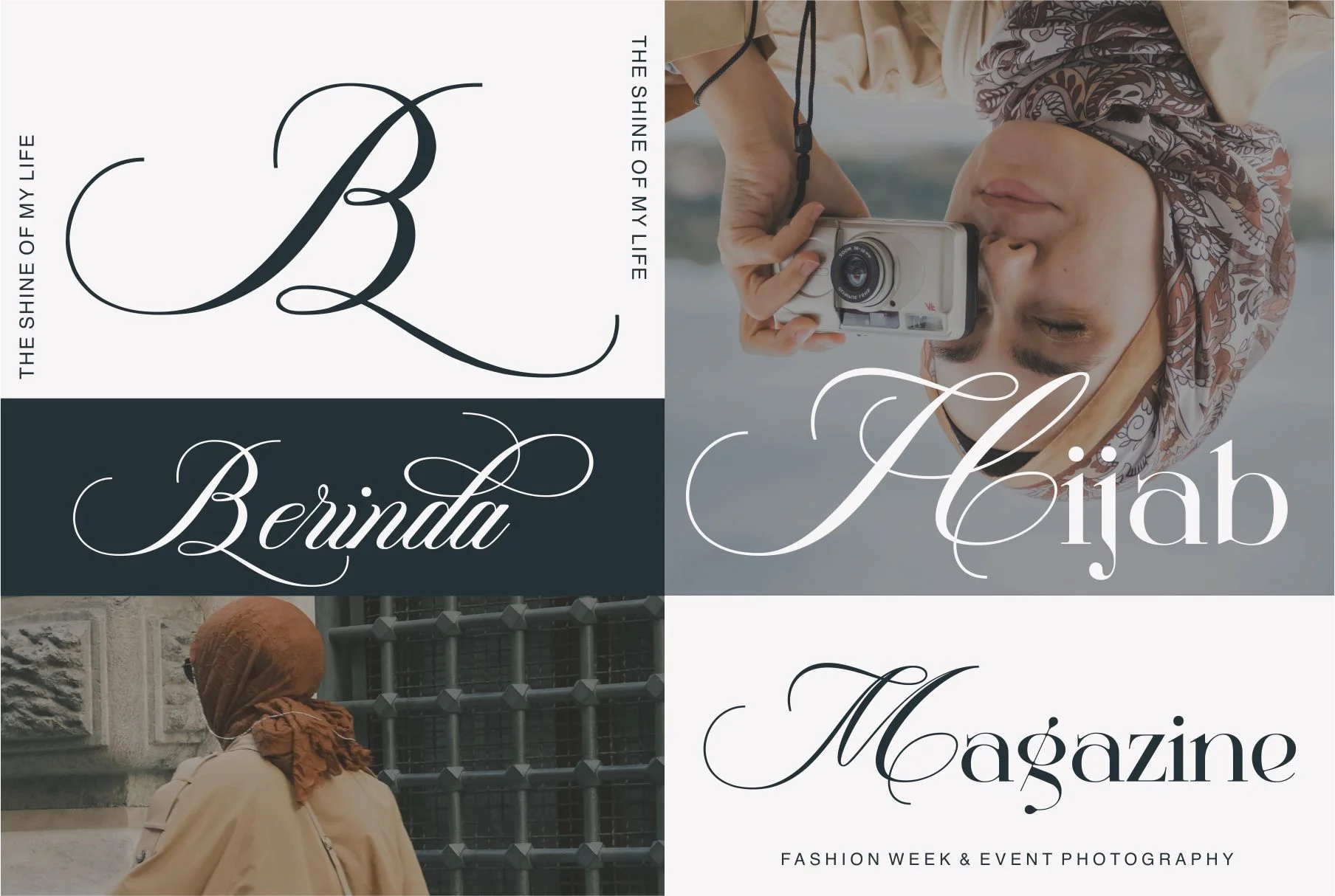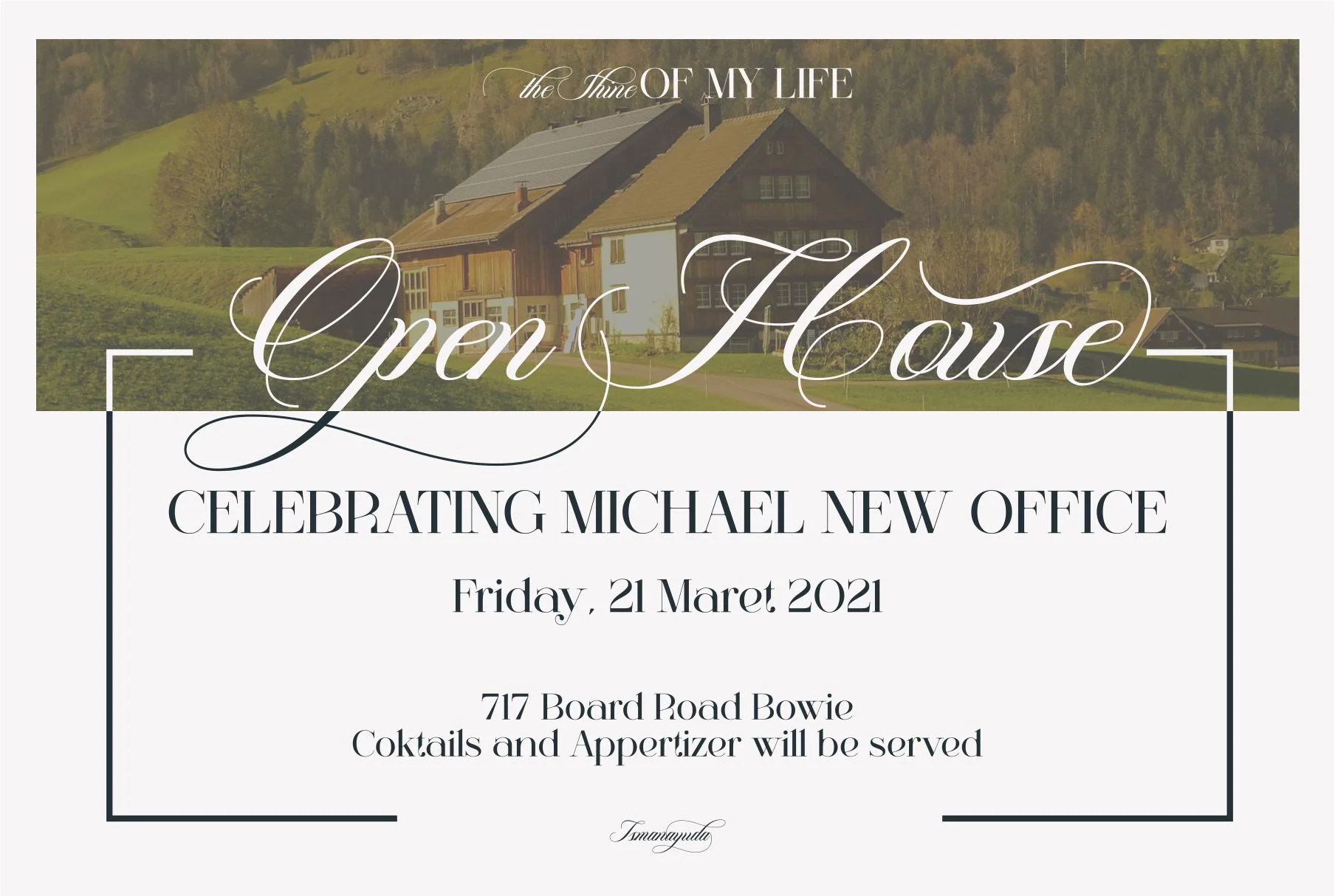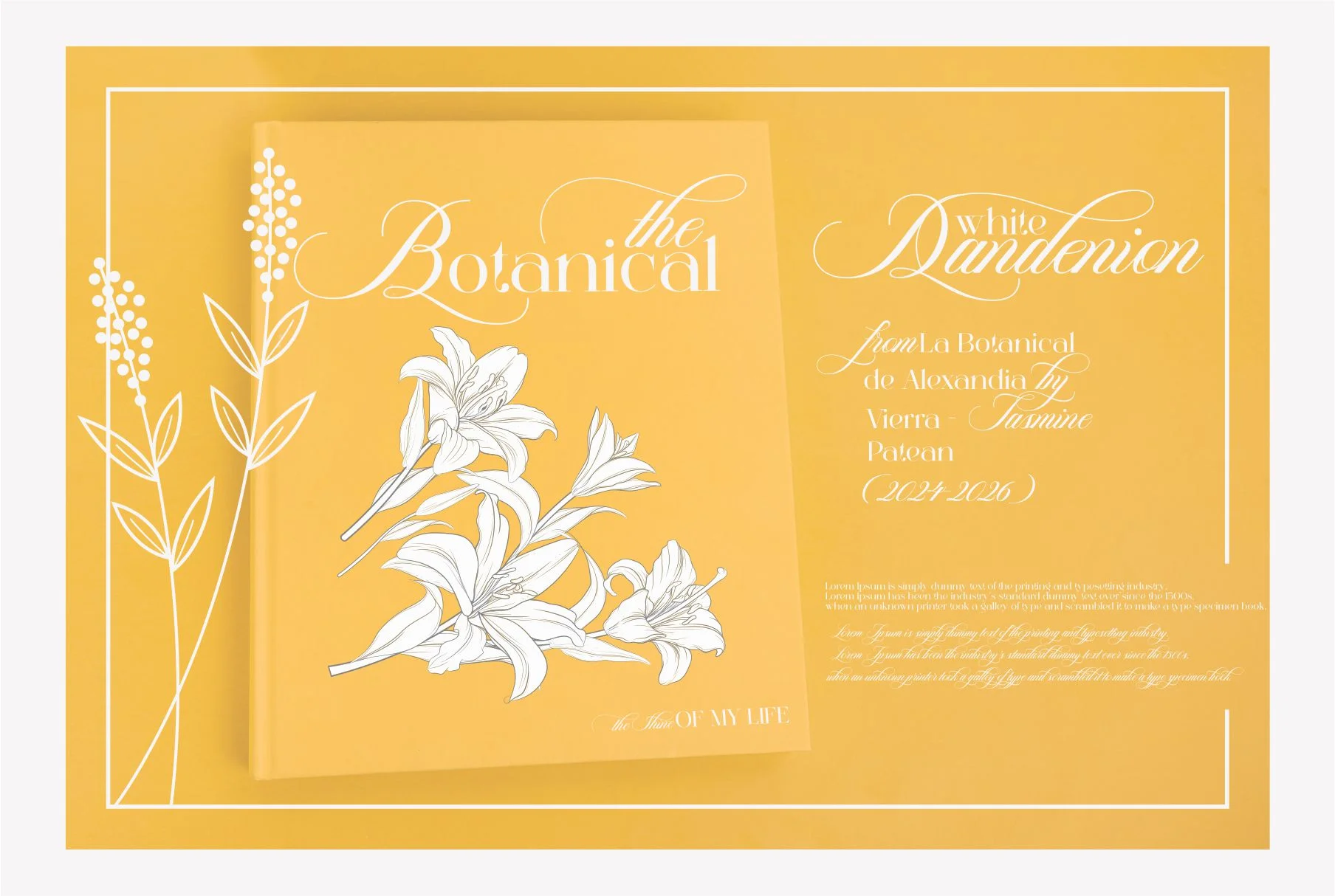
The Shine Of My life
The Shine is a sophisticated calligraphy display serif that blends high-contrast, modern serif letterforms with elegant, sweeping swashes. It is characterized by:
- Dramatic Ligatures and Swashes: The lowercase "t" and uppercase "S" in the main title feature long, fluid strokes that add an artistic, handcrafted feel.
- High Contrast: The letterforms (particularly in "OF MY LIFE") showcase a stark difference between thick vertical stems and very thin horizontal strokes, a hallmark of modern or Didone-style serifs.
- Refined Detail: The design is polished and formal, making it a high-impact choice for luxury branding, wedding invitations, fashion editorial headlines, and specialized shop signage.